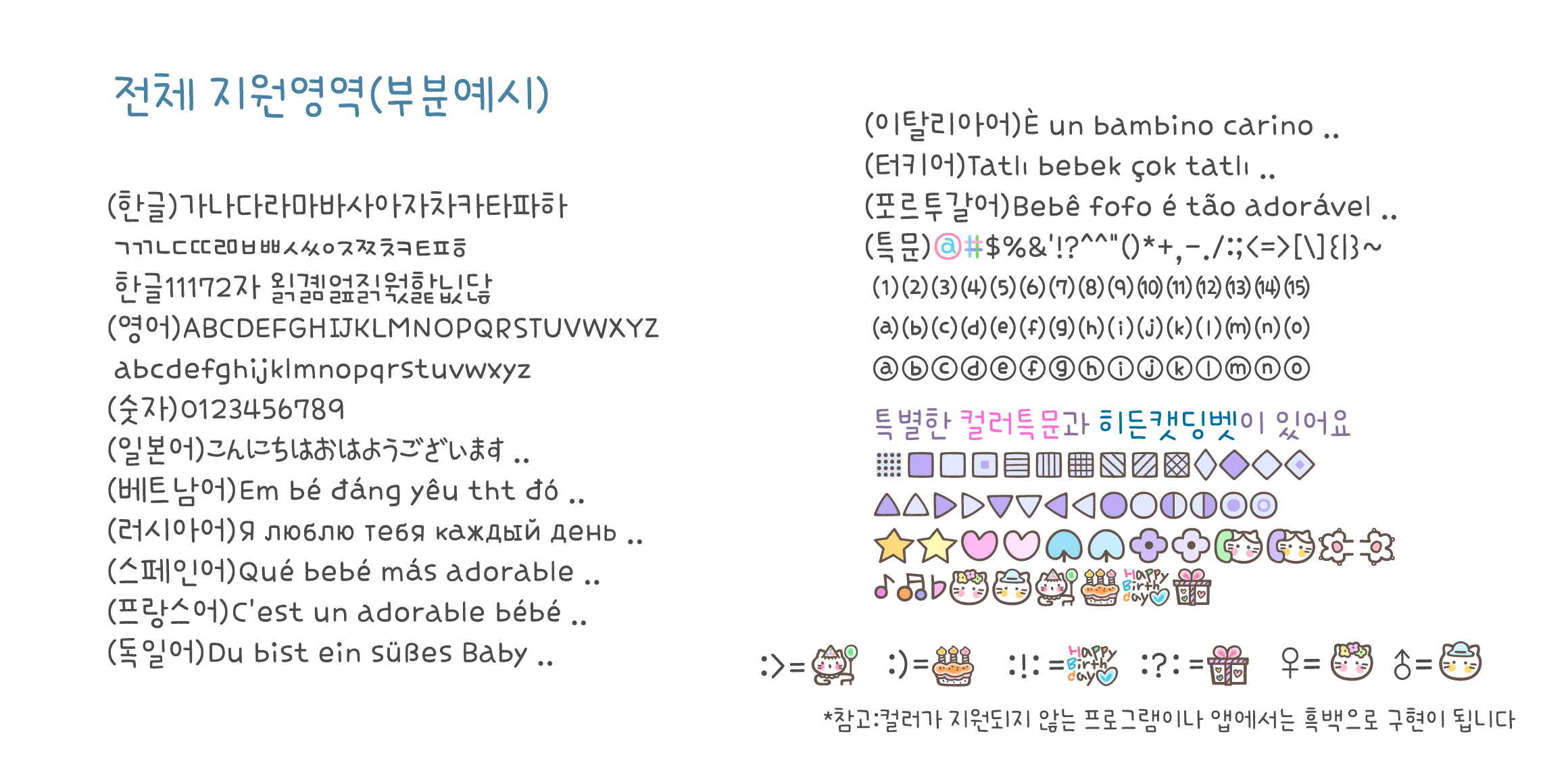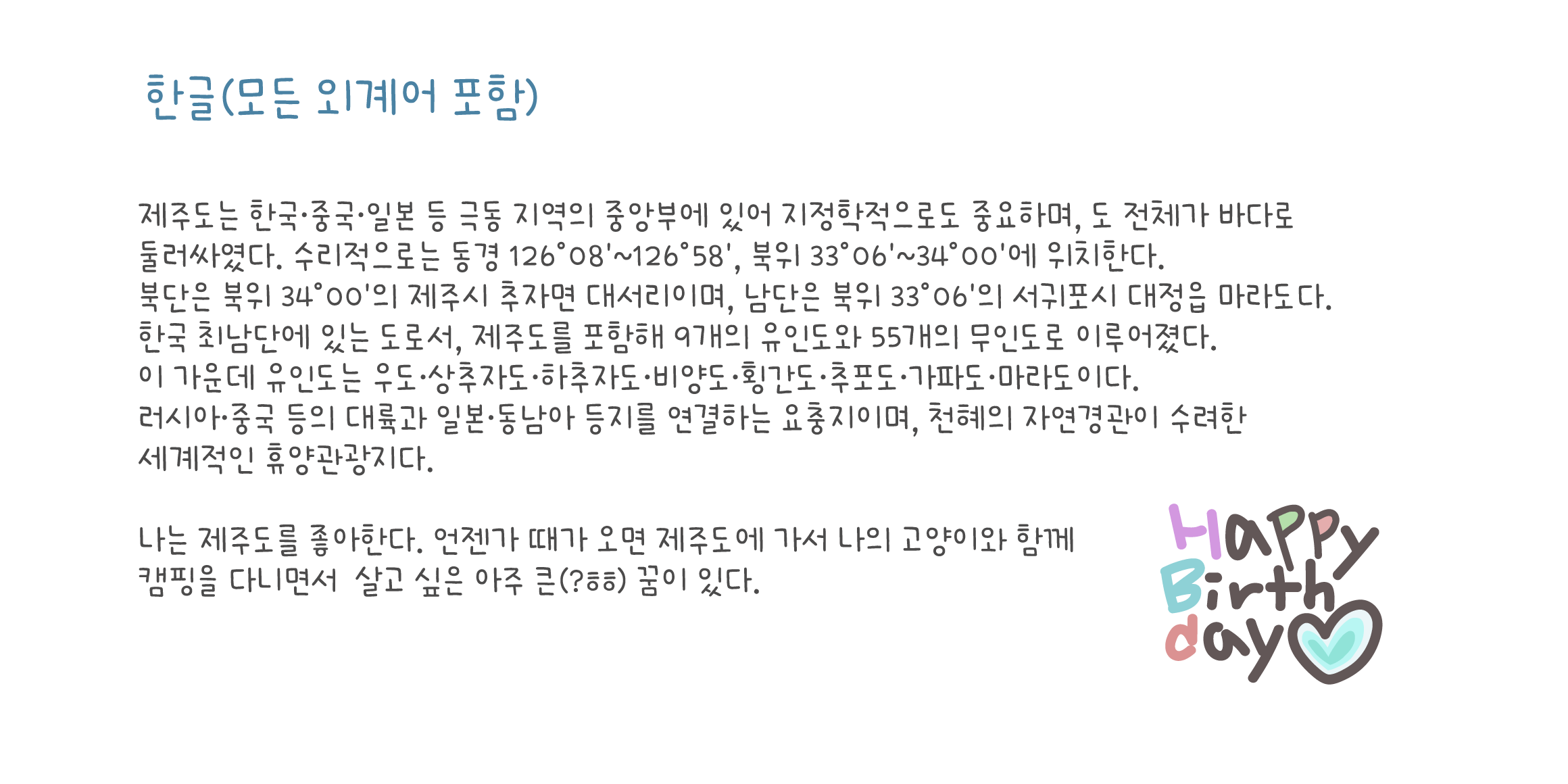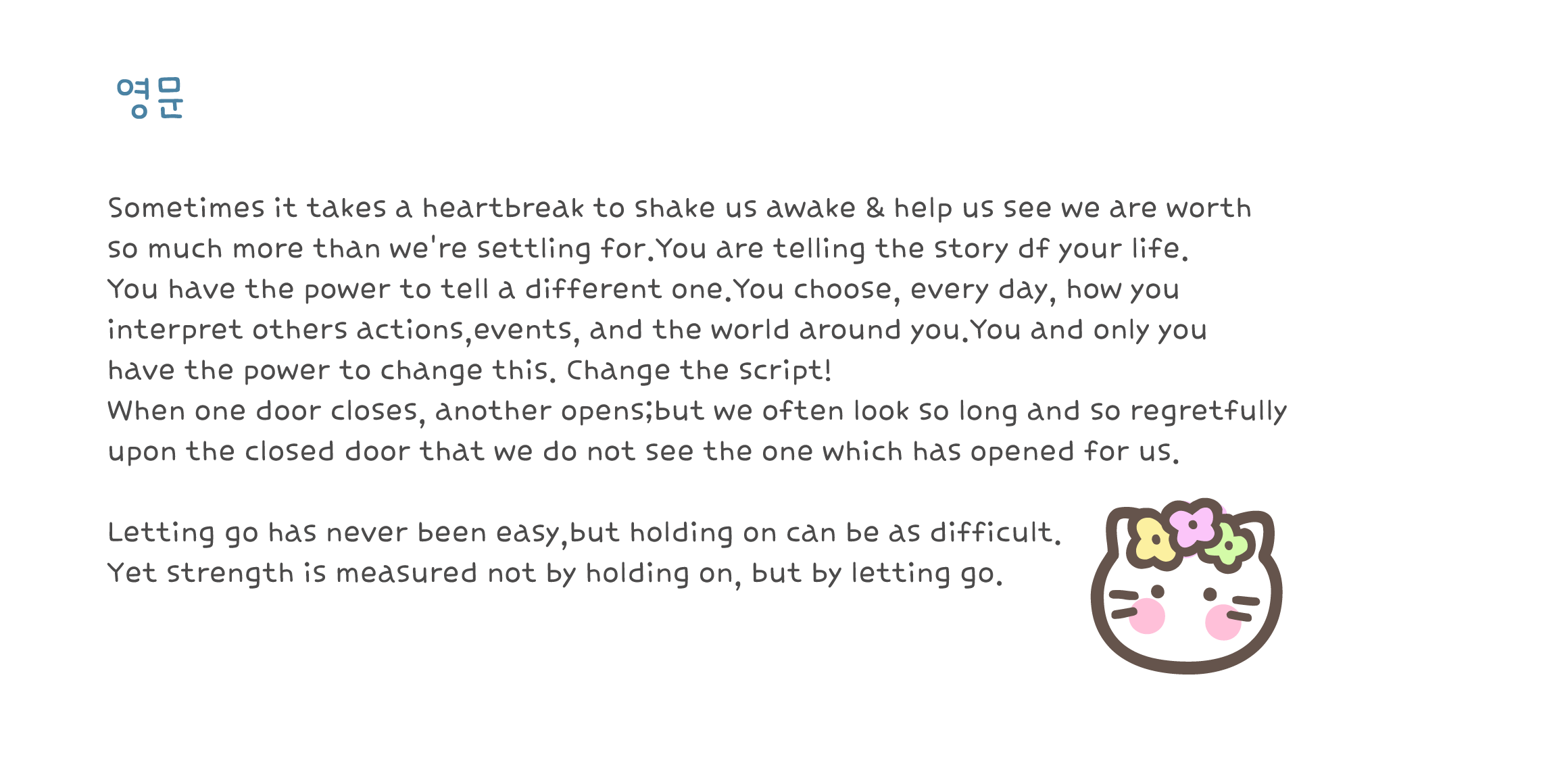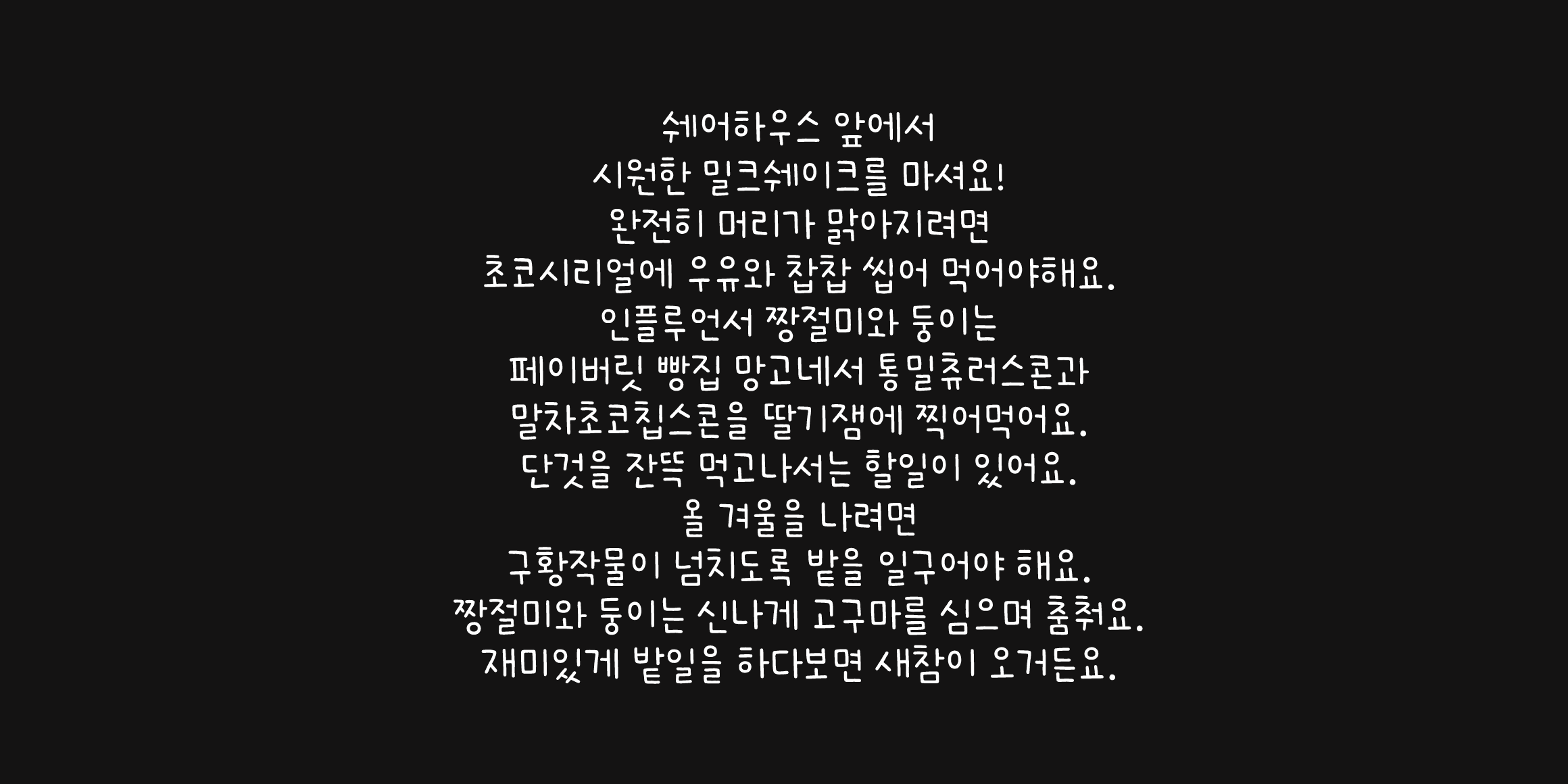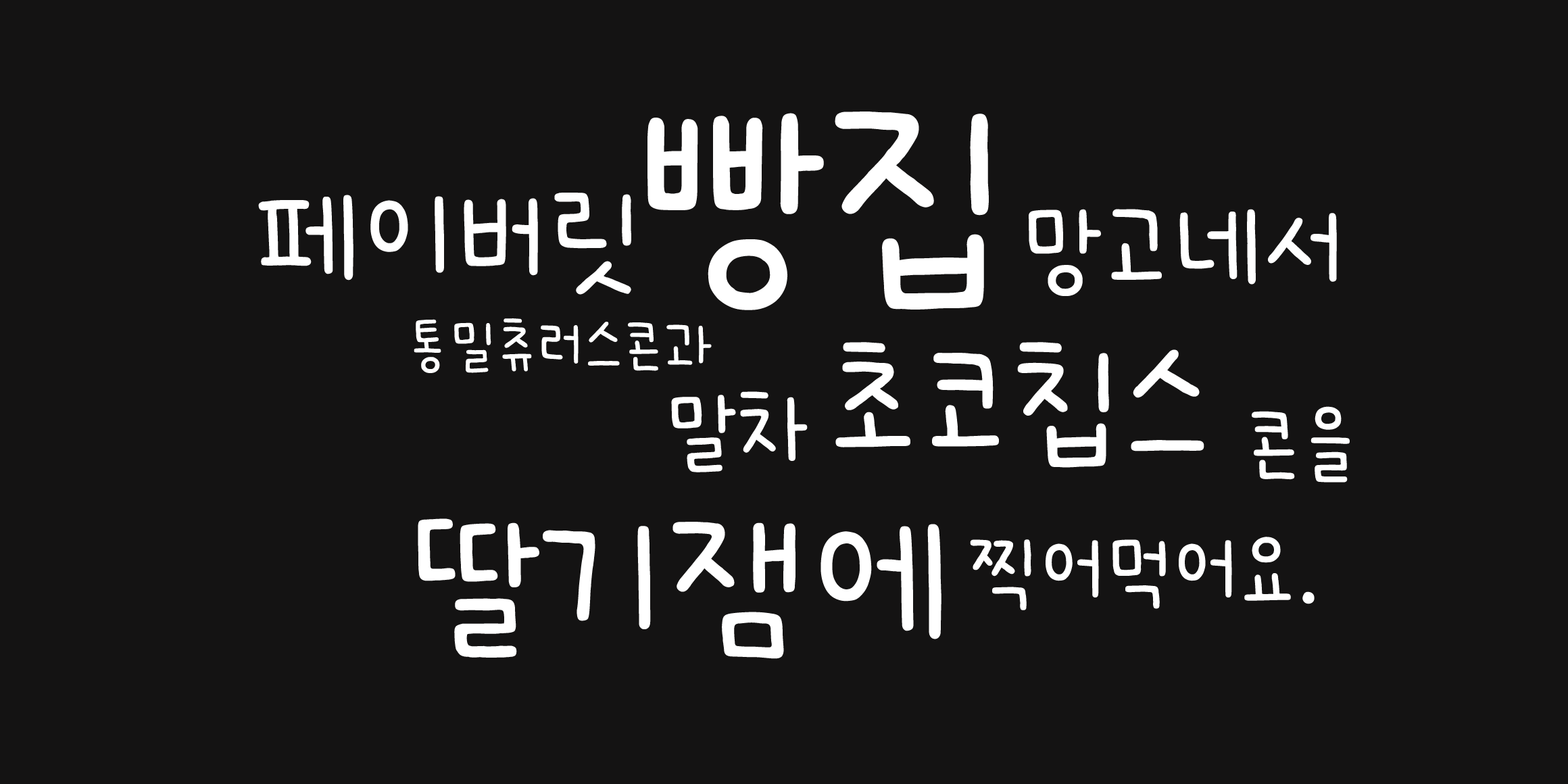
A project to have a happy and enjoyable birthday.
Spending a day with friends is great,
but also love spending a day completely just for myself!
♥catfont that delivers happiness.
♥catfont is your pet!!
Including English, Japanese, and Vietnamese.
It also supports the languages of various European countries.
It supports a wide range of languages and special characters.
♥ Keyboard : ! : and : ? : and ; ) and ; > If you type in a row,
Cat Font's unique dingbet is hidden.
♥ Including English, Japanese, and Vietnamese,
It also supports the languages of various European countries.
It supports a wide range of languages and special characters.